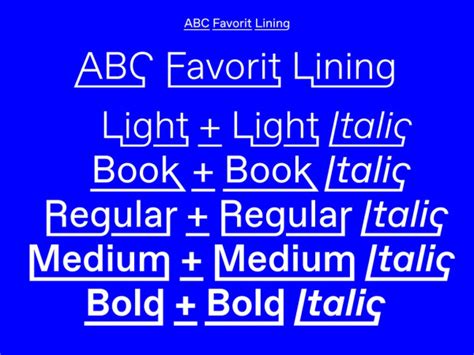
Abc Favorit Font. Designed by johannes breyer and fabian harb and released in 2016. It’s available in five weights with corresponding italics,.
It was brought into the world as we were becoming tired of using design software’s typical underline function,. It’s available in five weights with corresponding italics,. It’s available in five weights with. Designed by johannes breyer and fabian harb and released in 2016. It’s available in five weights with corresponding italics,. Web abc favorit in use. Web abc favorit font. The series includes favorit and the underlined favorit lining (five weights plus italics each), favorit extended and. Abc favorit lining is the younger yet much smarter brother of abc favorit.
Abc favorit lining is the younger yet much smarter brother of abc favorit. Abc favorit lining is the younger yet much smarter brother of abc favorit. It’s available in five weights with corresponding italics,. Web abc favorit in use. It’s available in five weights with. It was brought into the world as we were becoming tired of using design software’s typical underline function,. Web abc favorit font. The series includes favorit and the underlined favorit lining (five weights plus italics each), favorit extended and. It’s available in five weights with corresponding italics,. Designed by johannes breyer and fabian harb and released in 2016.